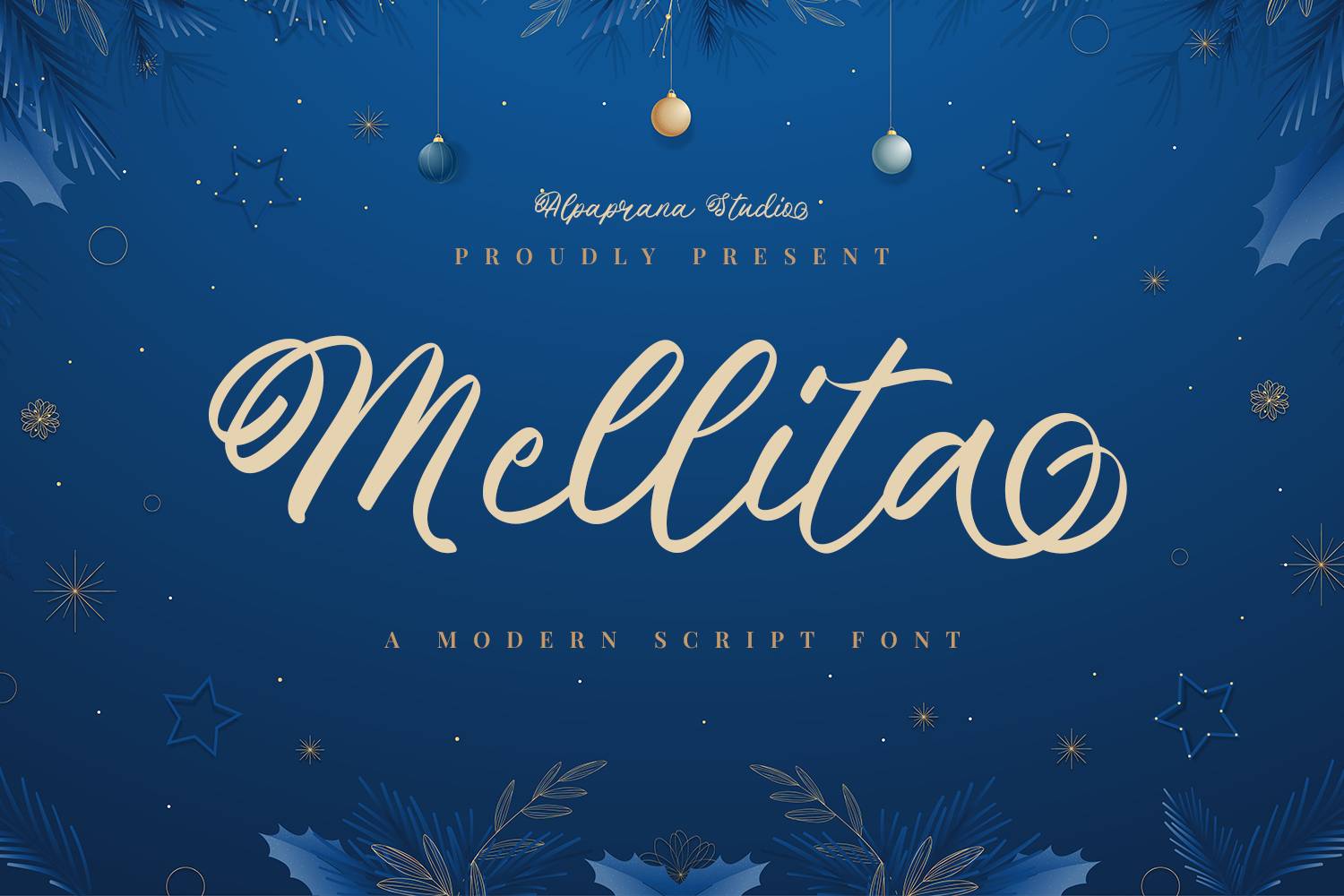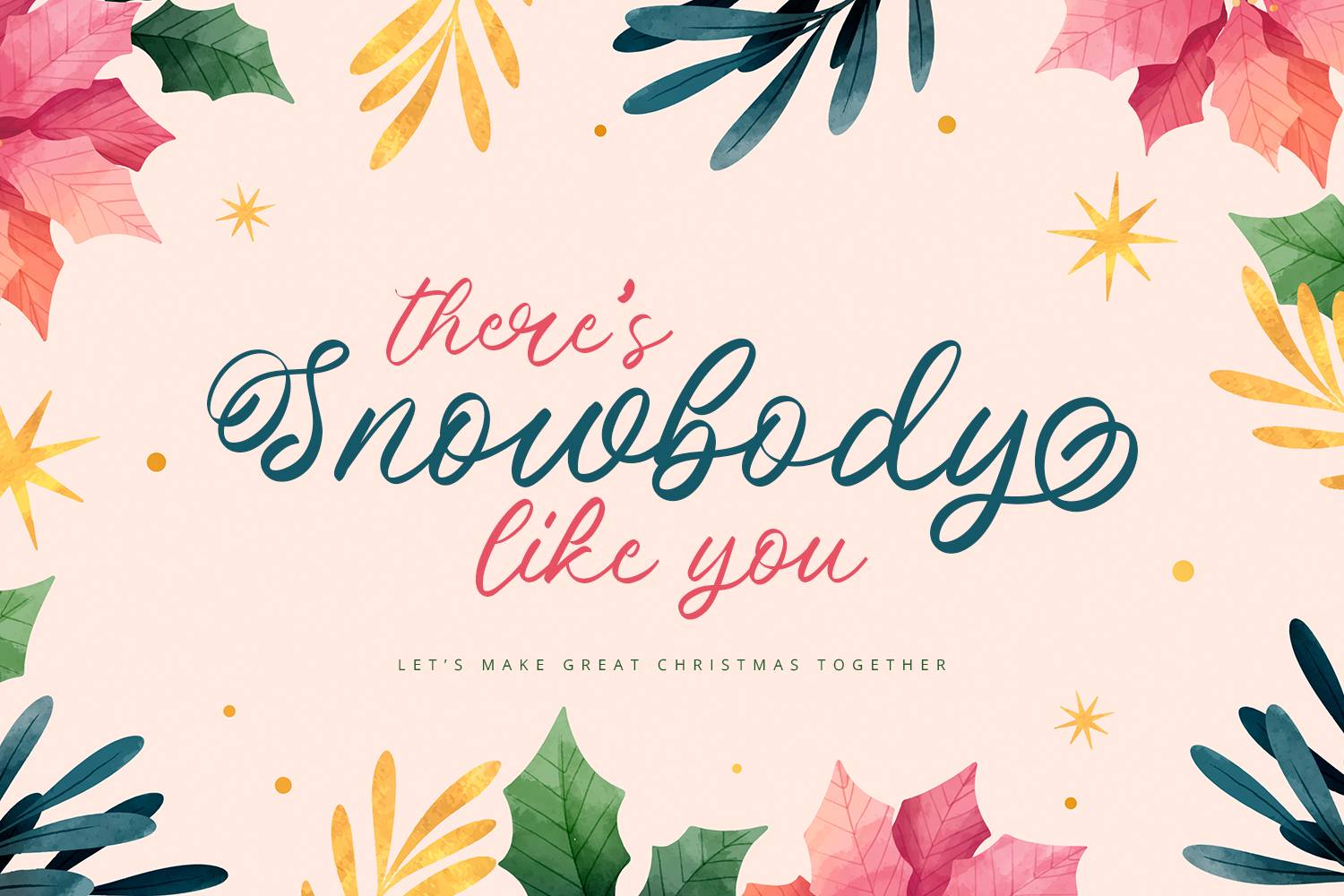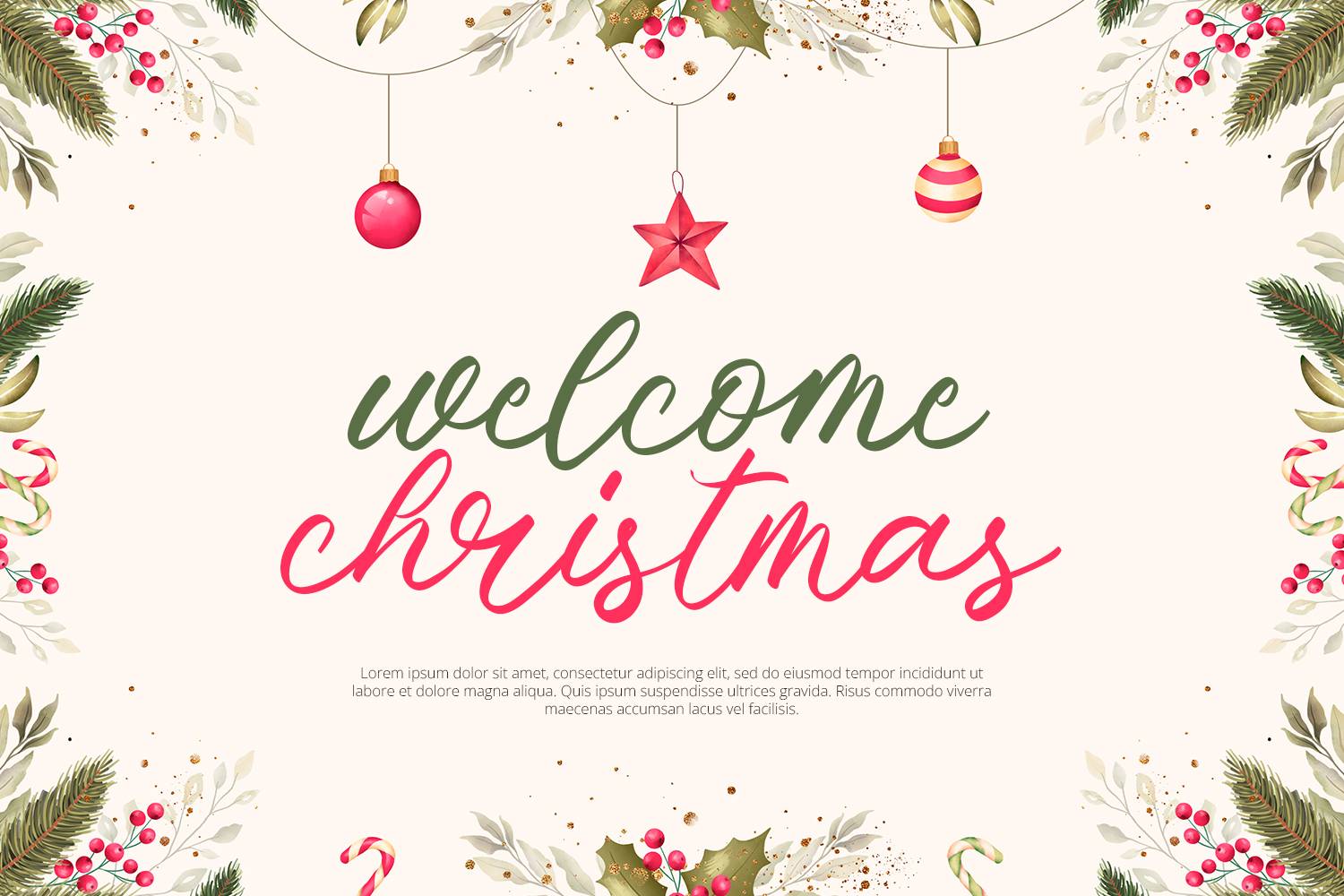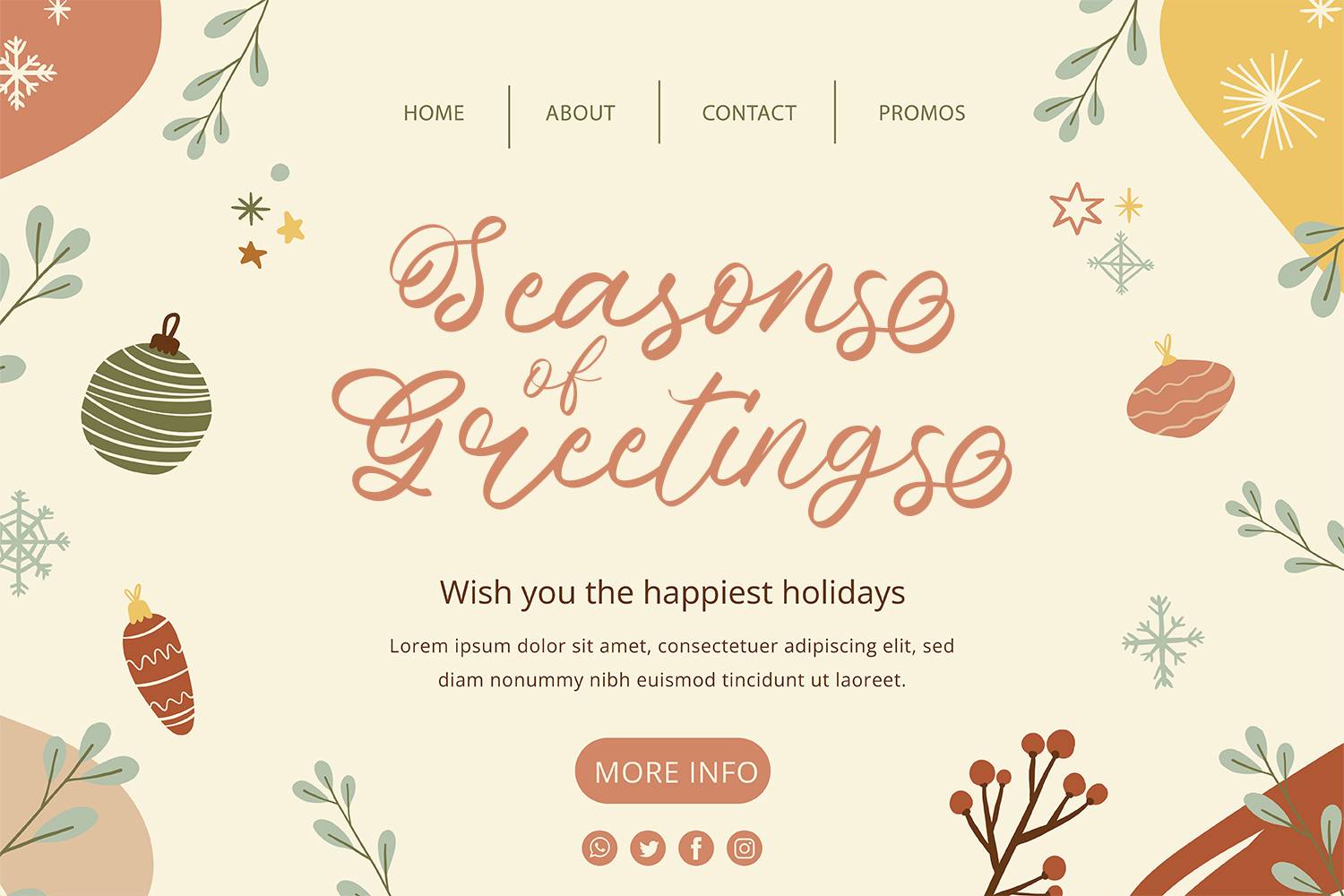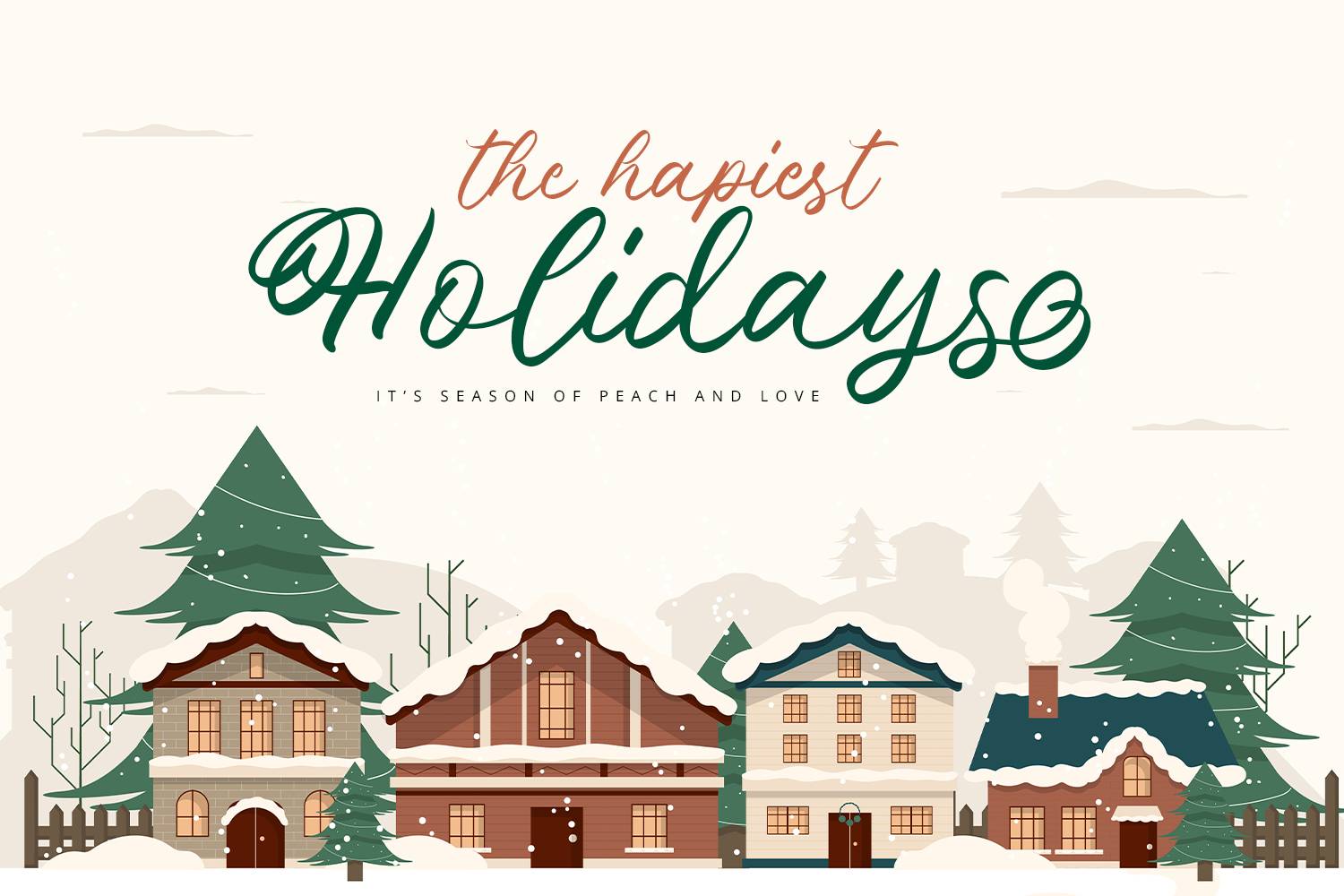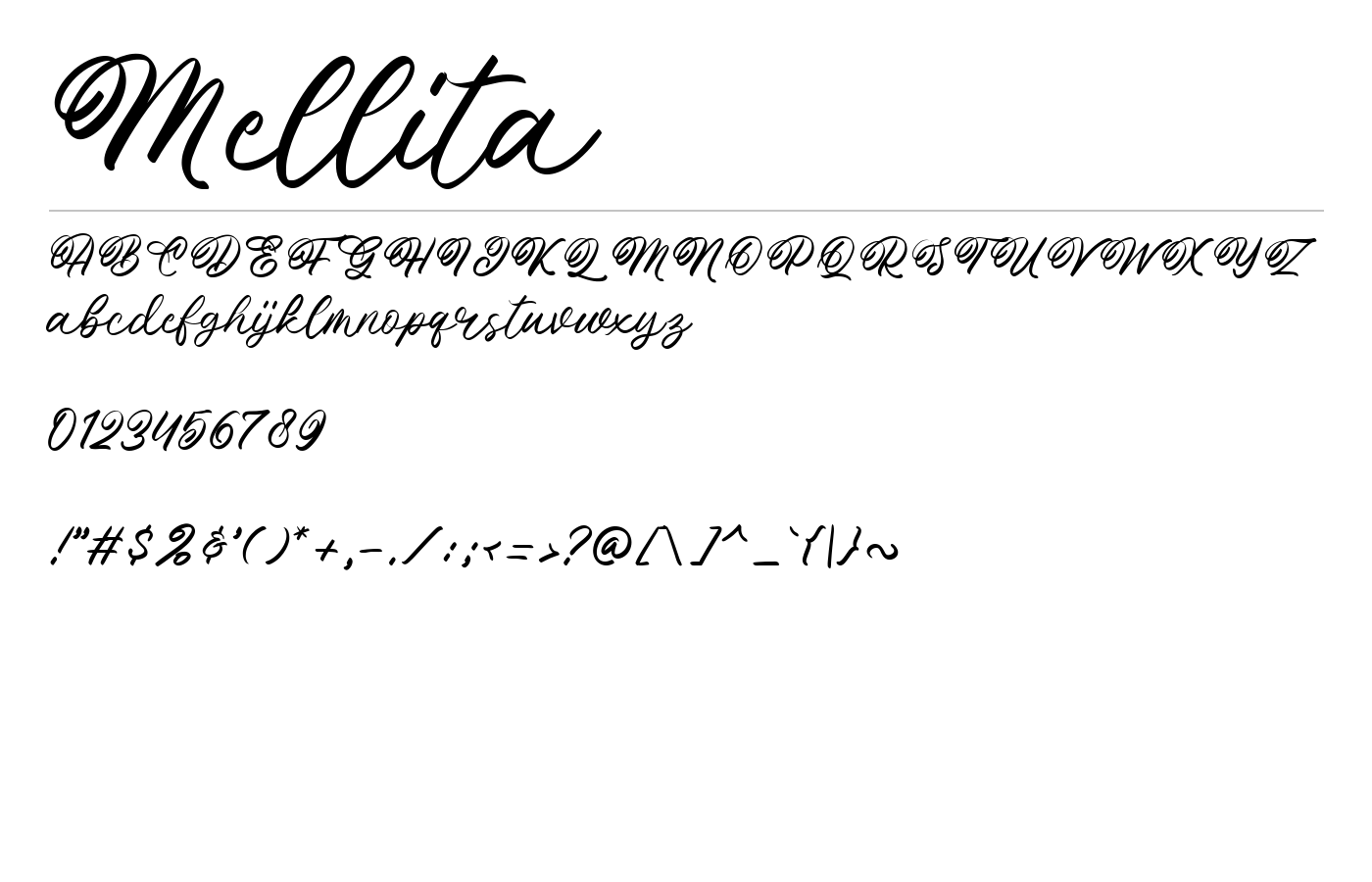
Mellita is an elegant script font characterized by its flowing, cursive letterforms with smooth, rounded strokes and moderate contrast. It conveys a sophisticated yet approachable feel, making it perfect for luxury branding, invitations, and stylish logos that require a personal, graceful touch. This font shines in creative projects where a refined, handwritten look enhances the visual appeal.
Mellita Font
About Mellita Font